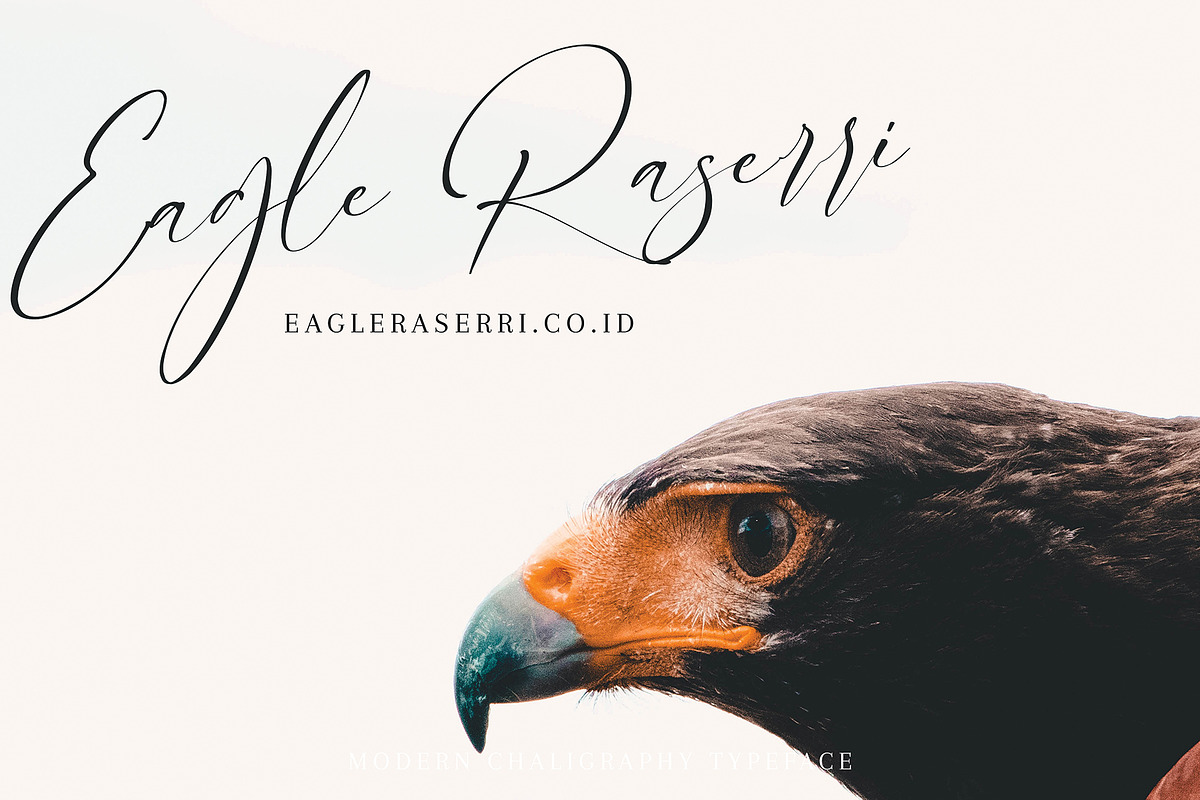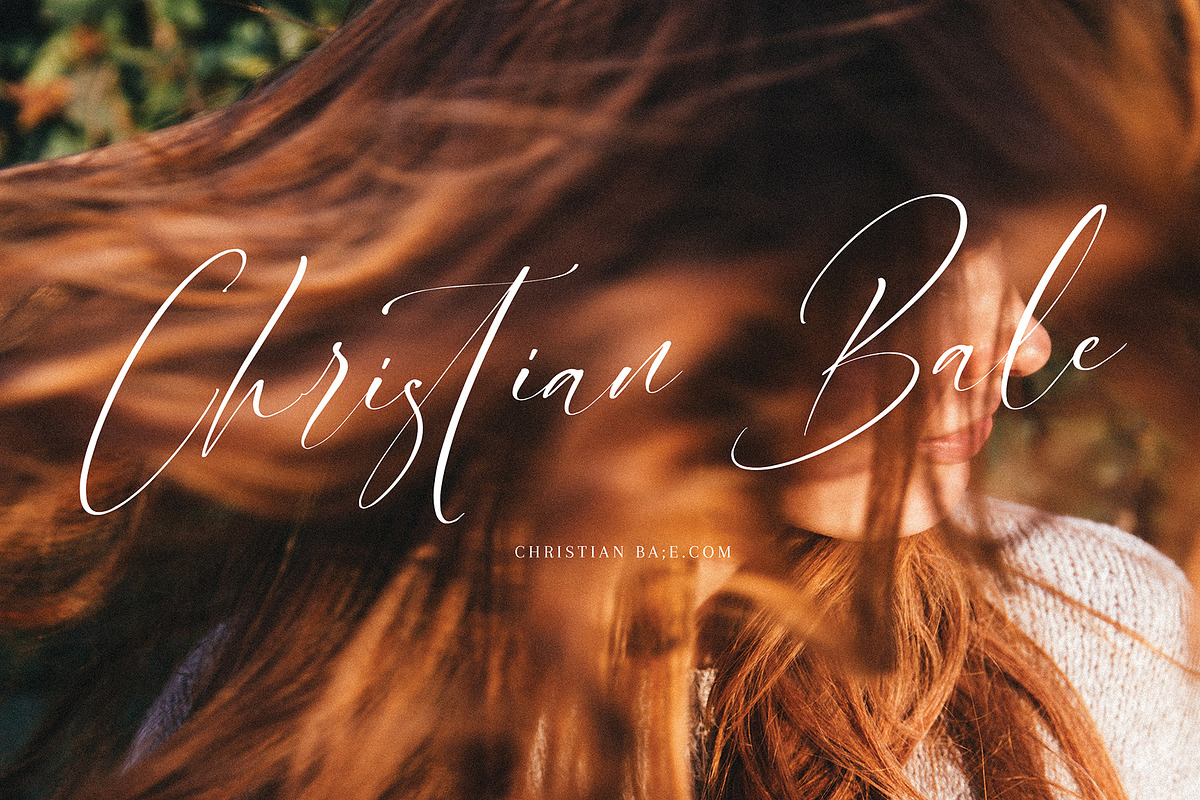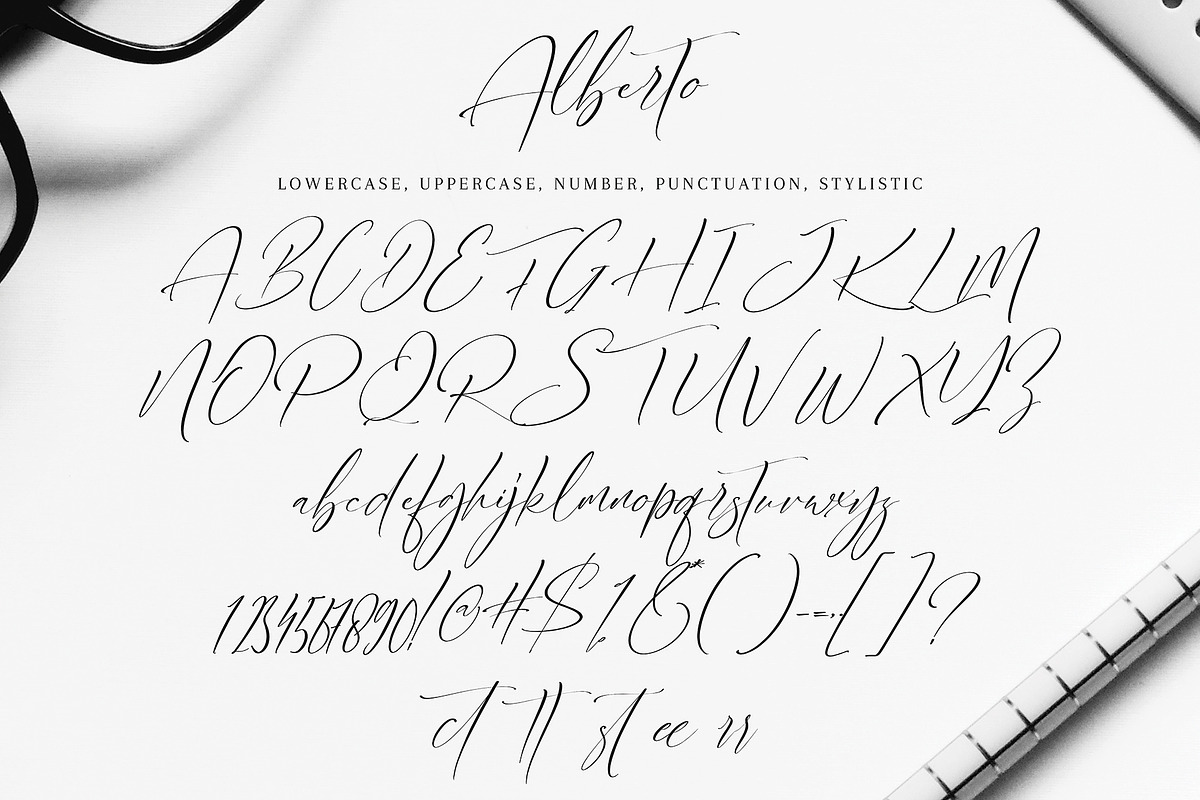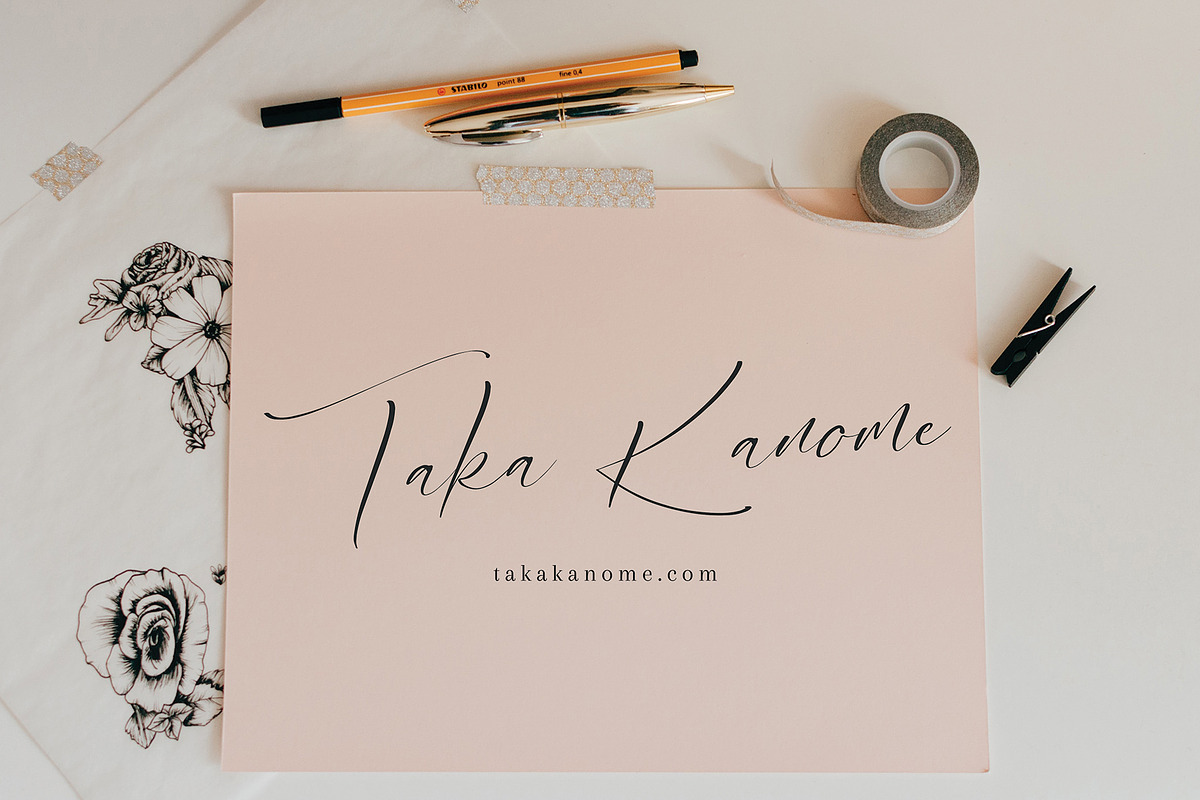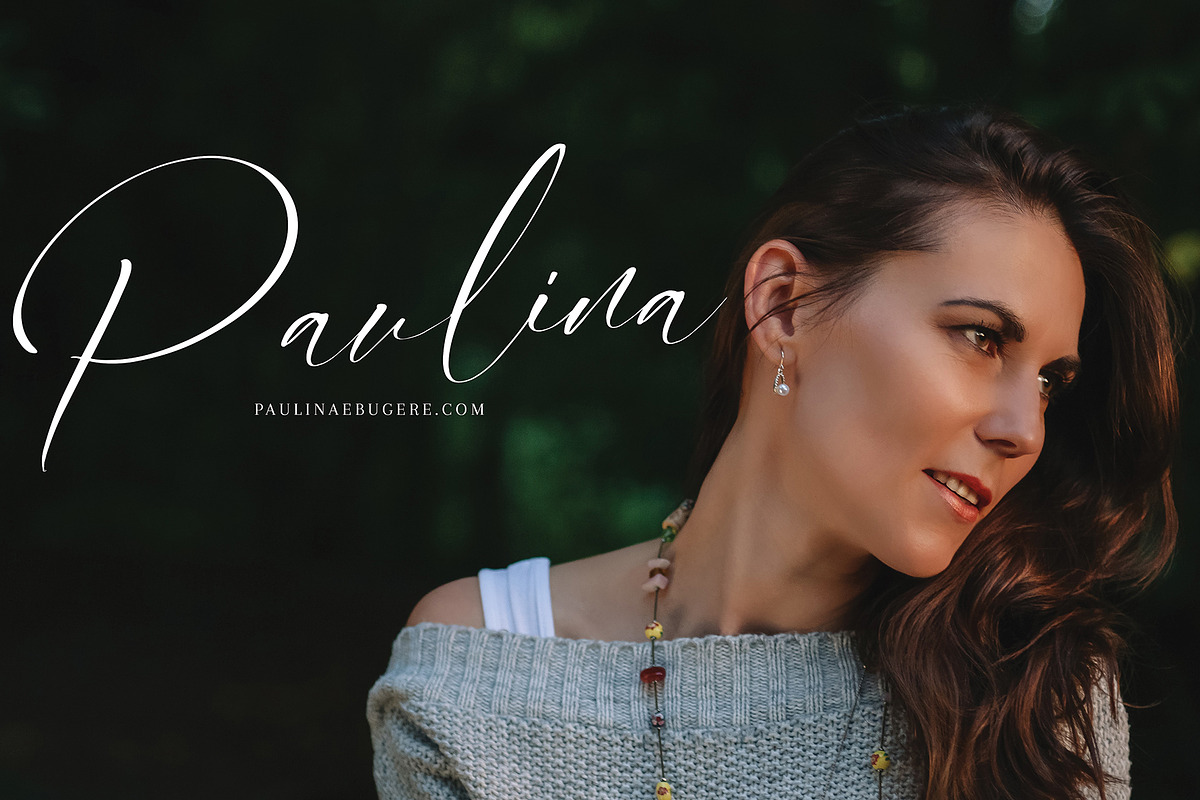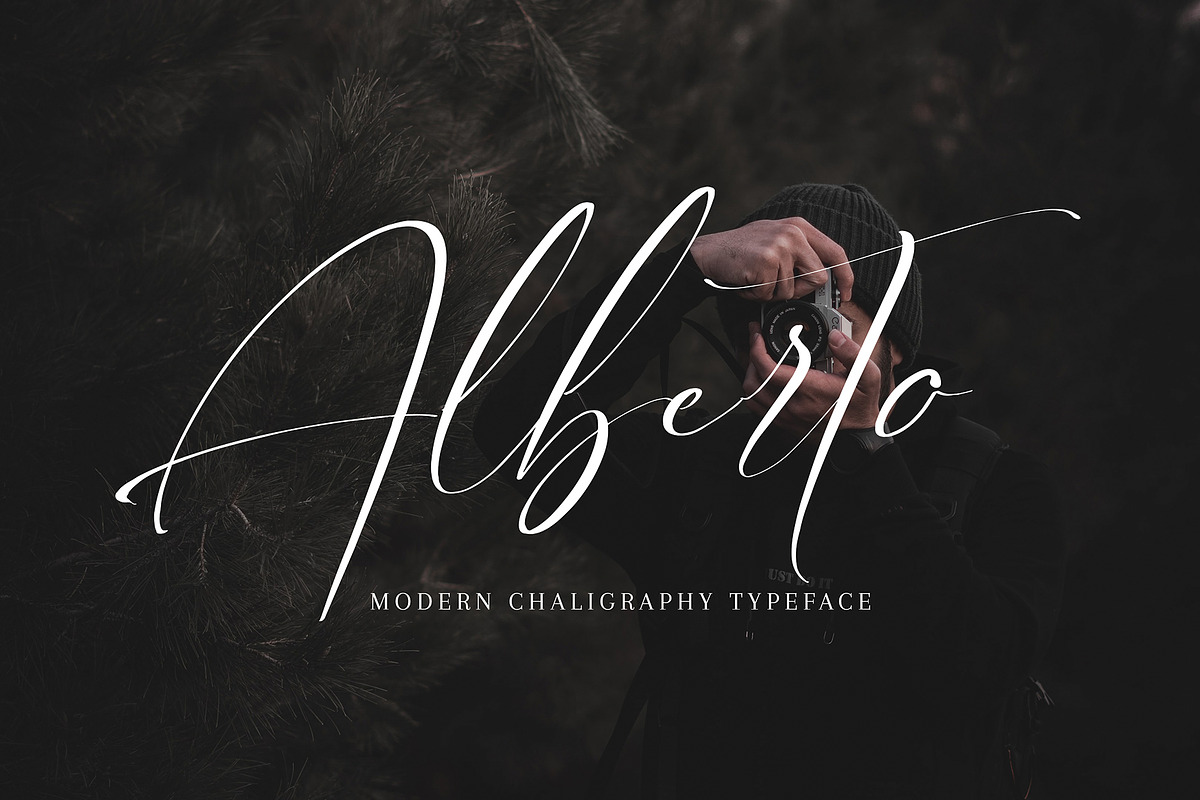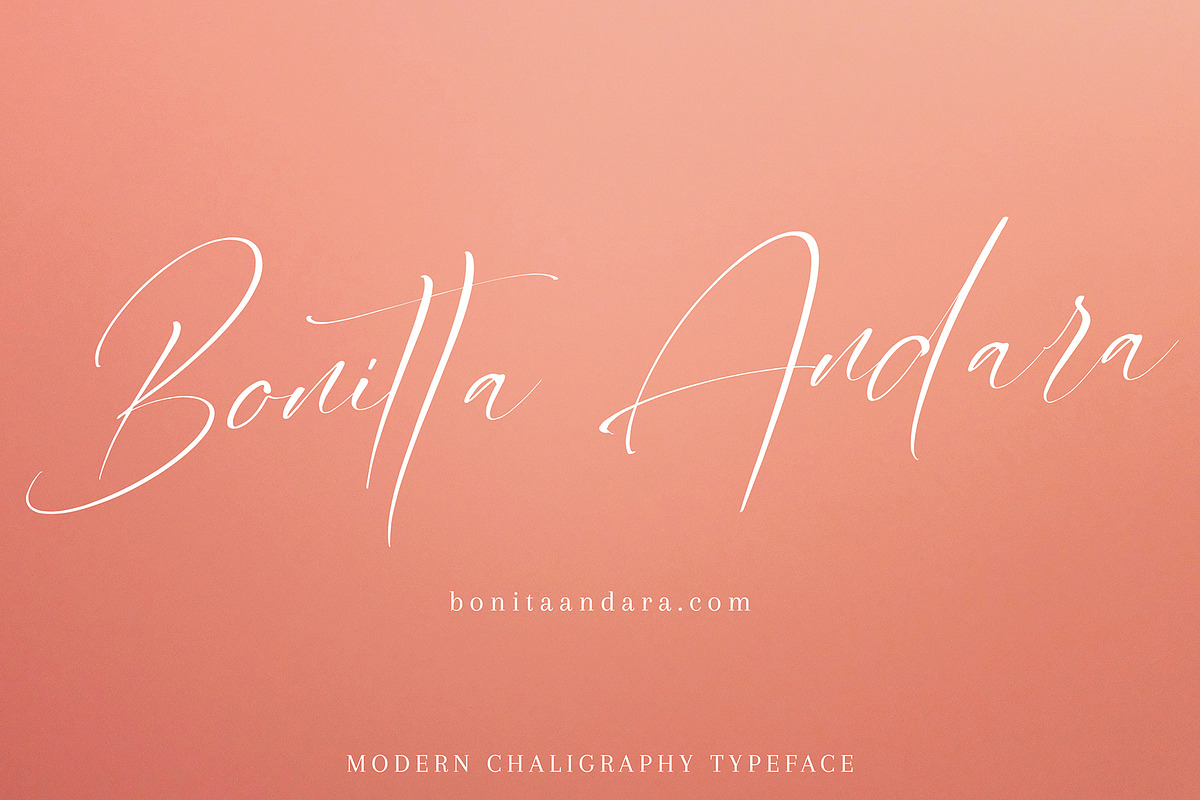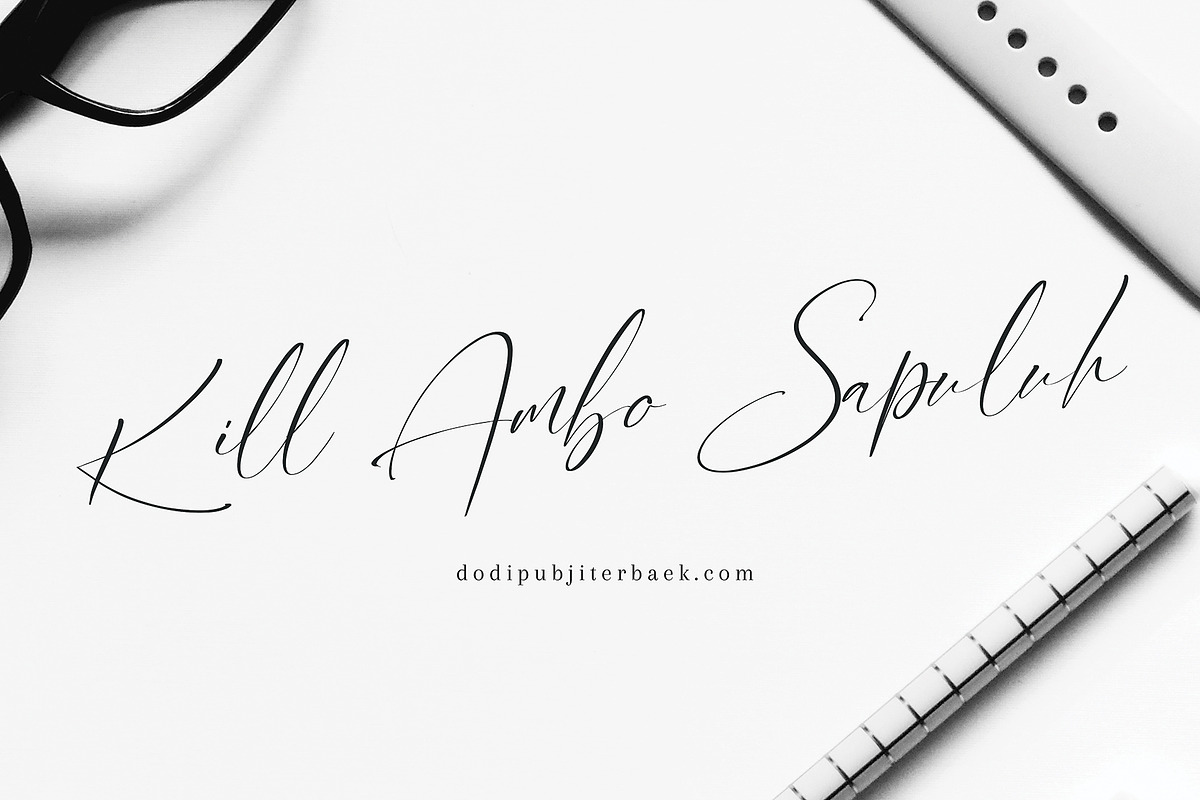
Alberto
Alberto font with new style, this font will perfect for many different project ex: quotes, logo, blog header, poster, banding, fashion, apparel, letter, invitation, stationery, etc...